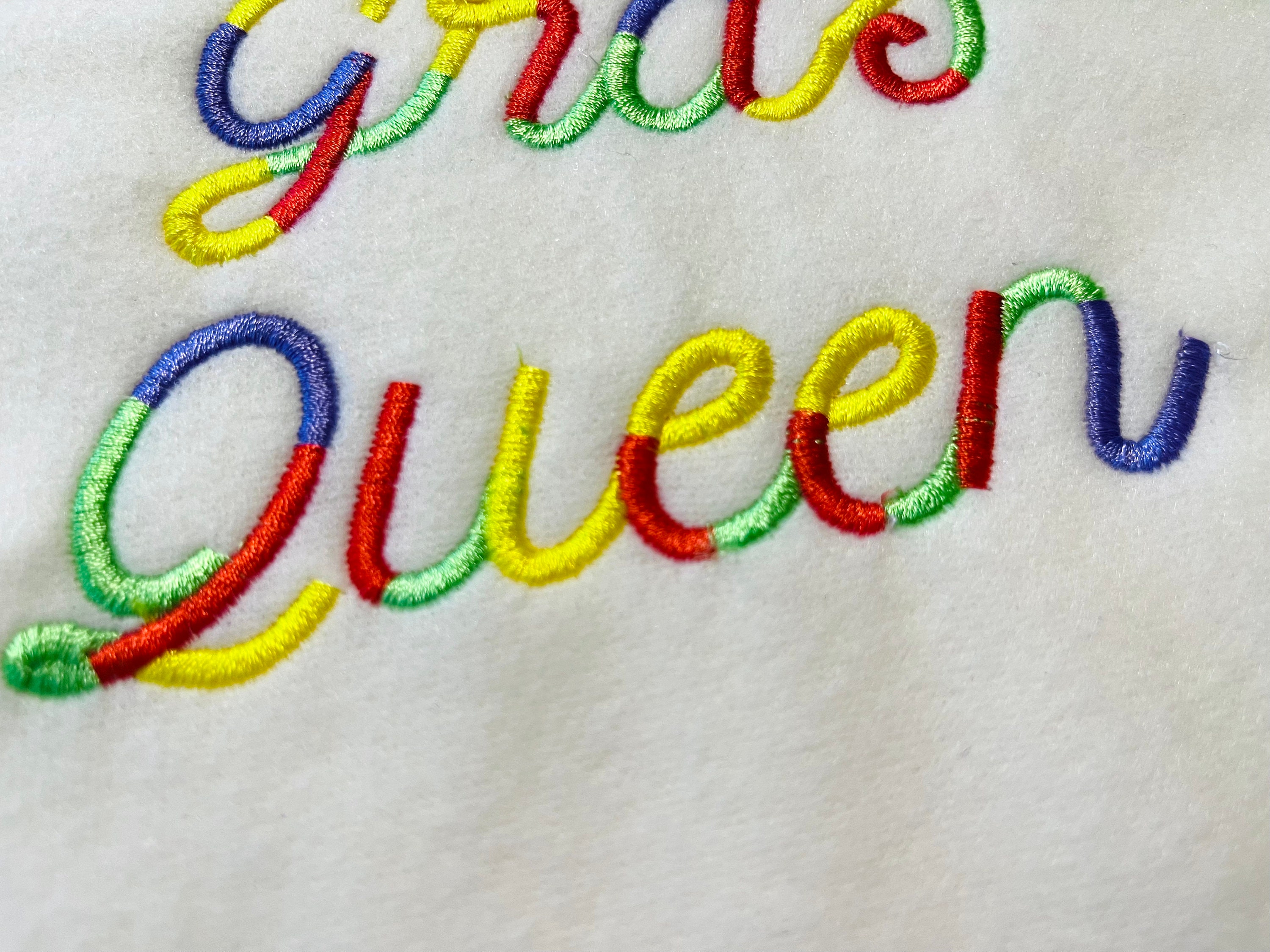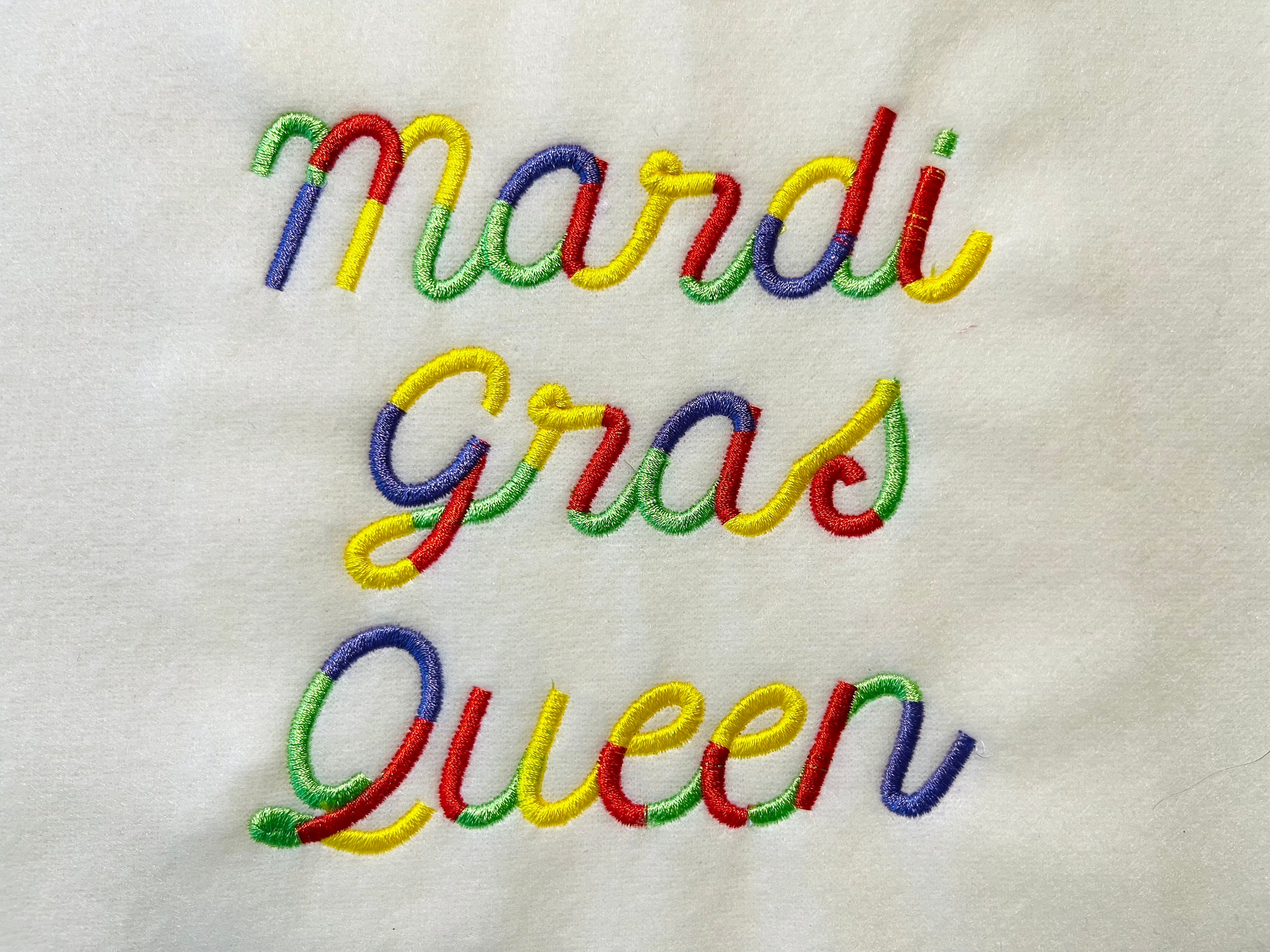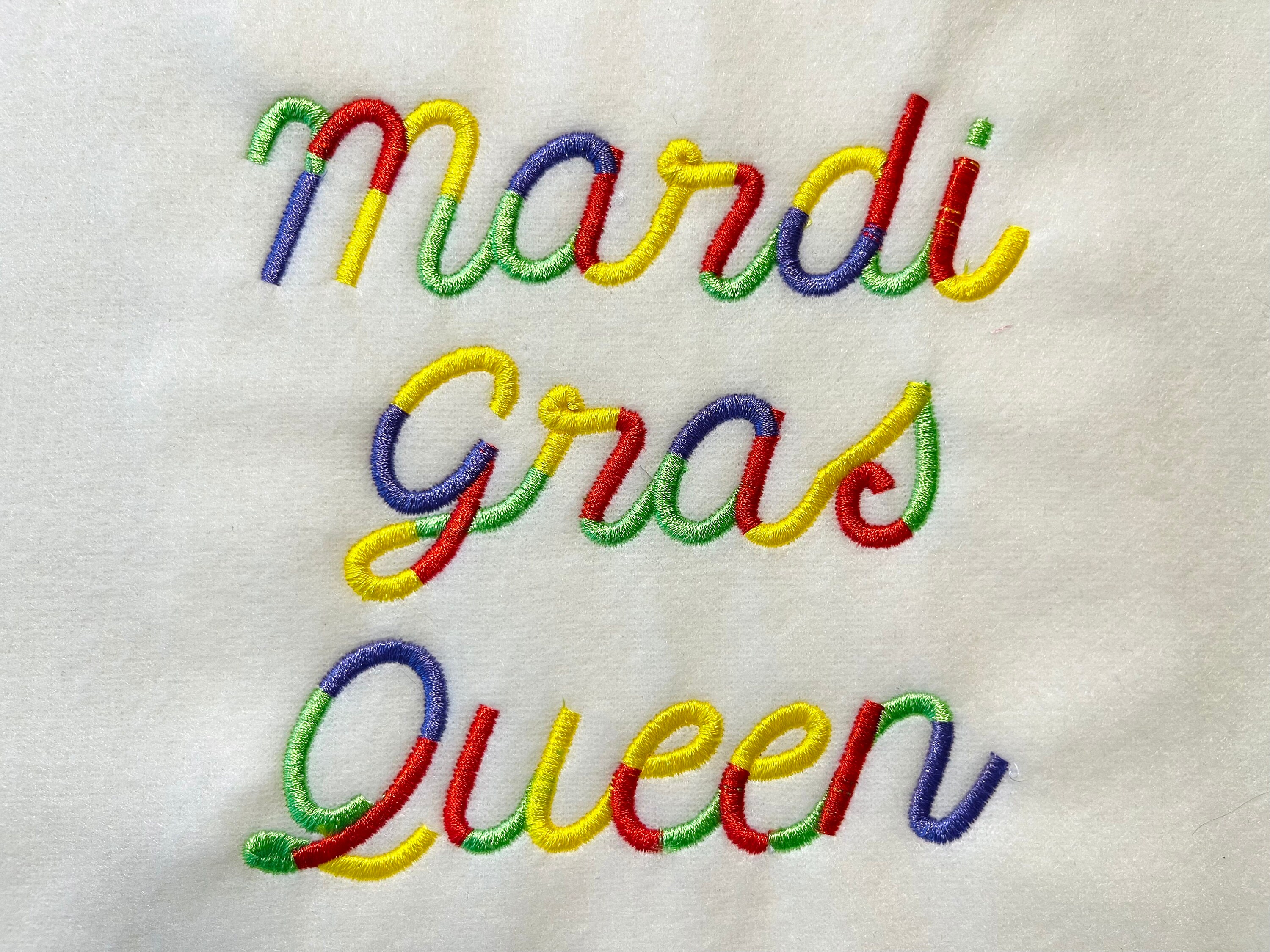
Multicolor line satin stitch FONT machine embroidery designs assorted mini sizes, handwritten alphabet letters, kids name, BX included
Whole alphabet: uppercase and lowercase letters, numbers and ampersand &